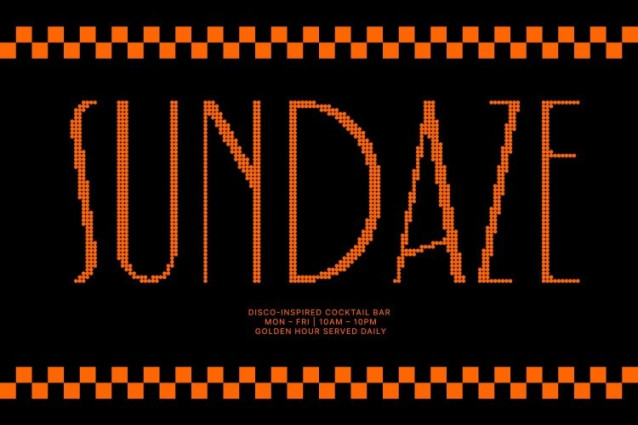
Folime Disco Font
Folime Disco Font This is an Art Deco-inspired typeface that embodies the refined, geometric elegance of the 1920s and 1930s. Its slim, precise letterforms and striking uppercase characters give any design a sophisticated, high-end appearance.
Condensed and Geometric for Modern Design
The condensed structure and clean geometric lines maximize visual impact while maintaining readability. These characteristics make this font ideal for decorative applications, luxury branding, and layouts that require a modern, stylish edge.
Disco Effect for Sparkle and Glamour
Adding a disco effect transforms this classic Art Deco font into a lively, eye-catching design element. Each character gleams with subtle shimmer, bringing energy, glamour, and a contemporary twist to the timeless Art Deco style.
Perfect for Editorials, Branding, and High-End Projects
This font excels in applications that demand elegance and visual sophistication. Whether used for editorial layouts, luxury packaging, event invitations, or decorative posters, this font combines historical charm with modern flair, making every project stand out with class and personality.